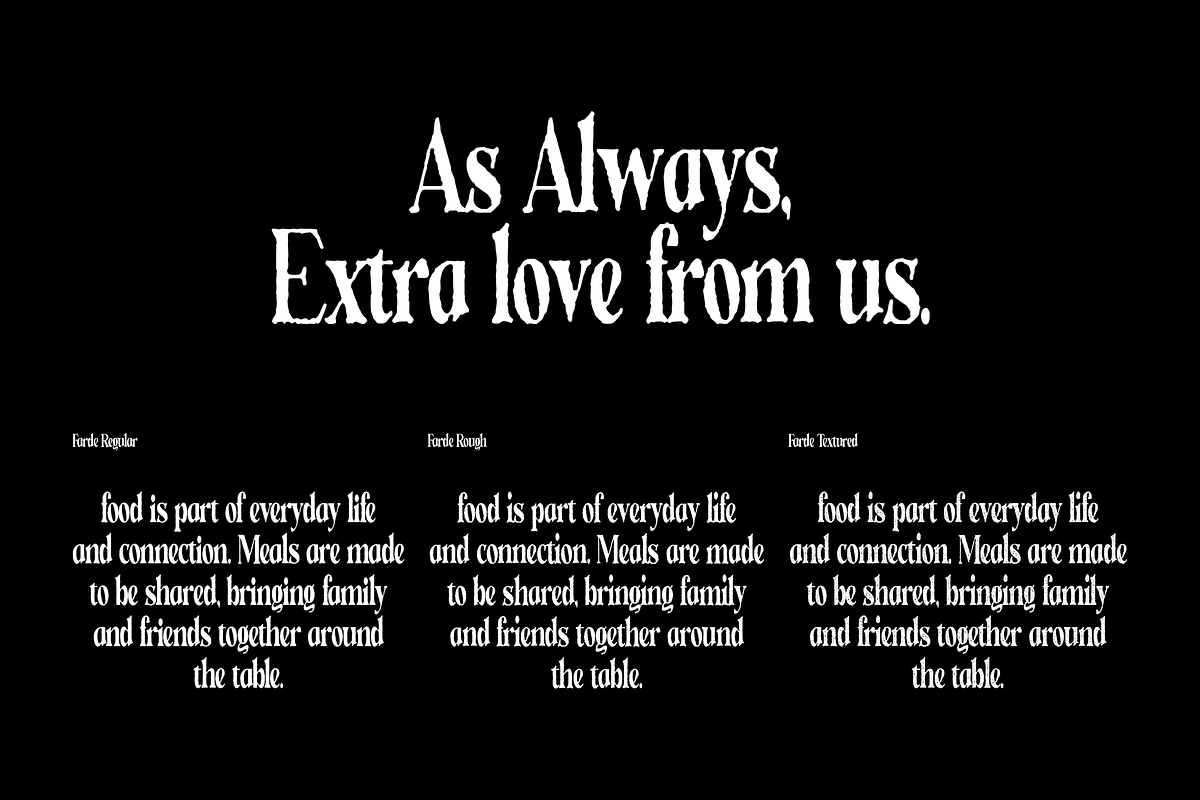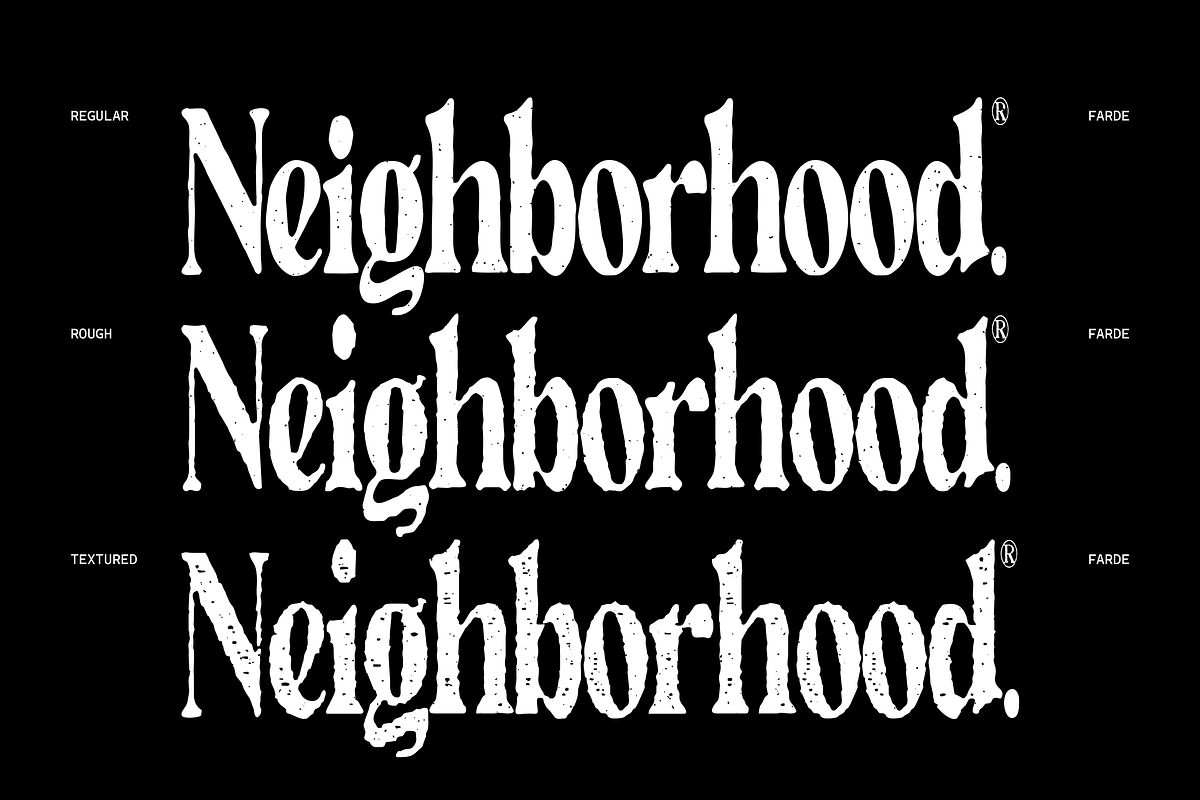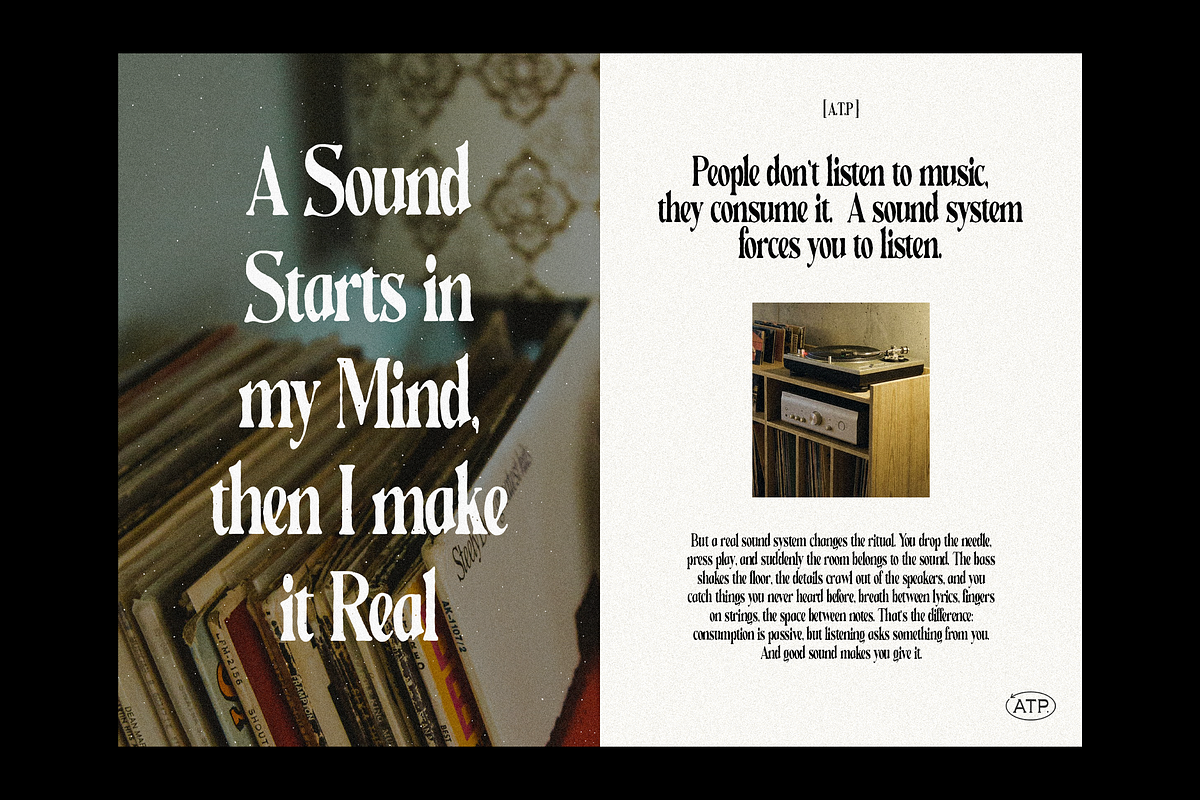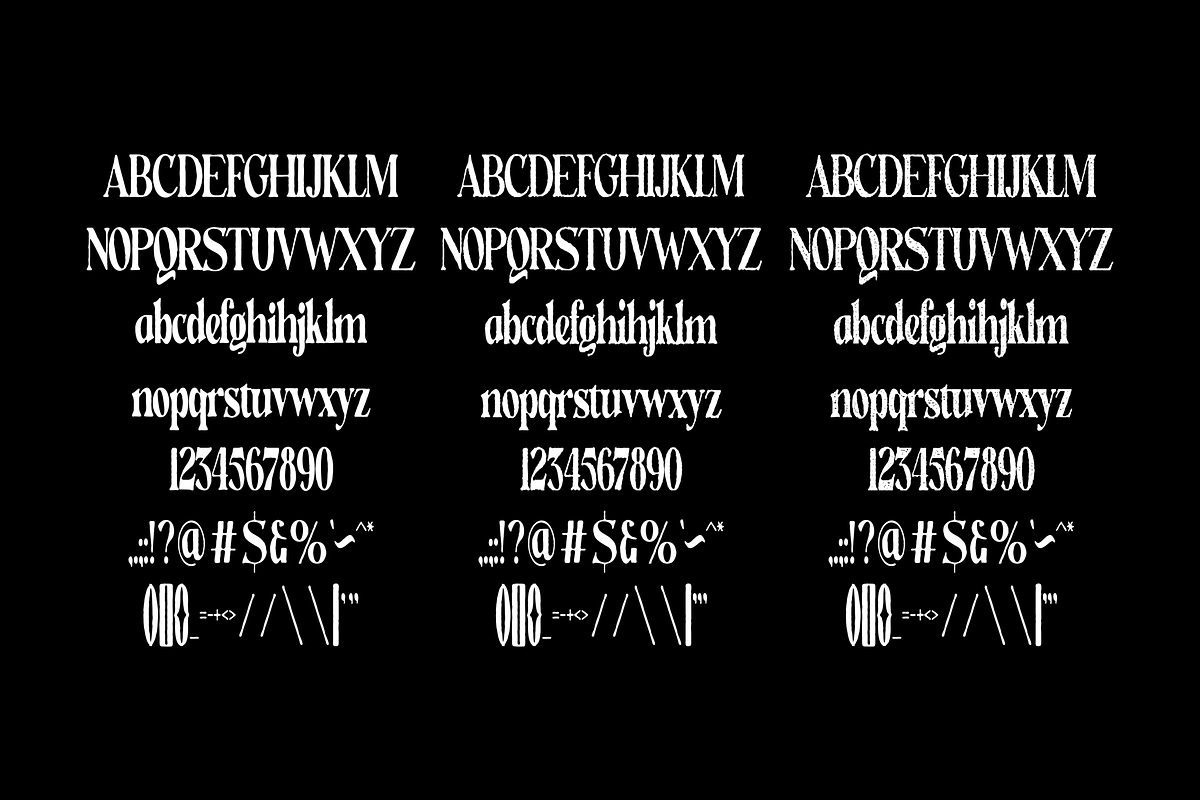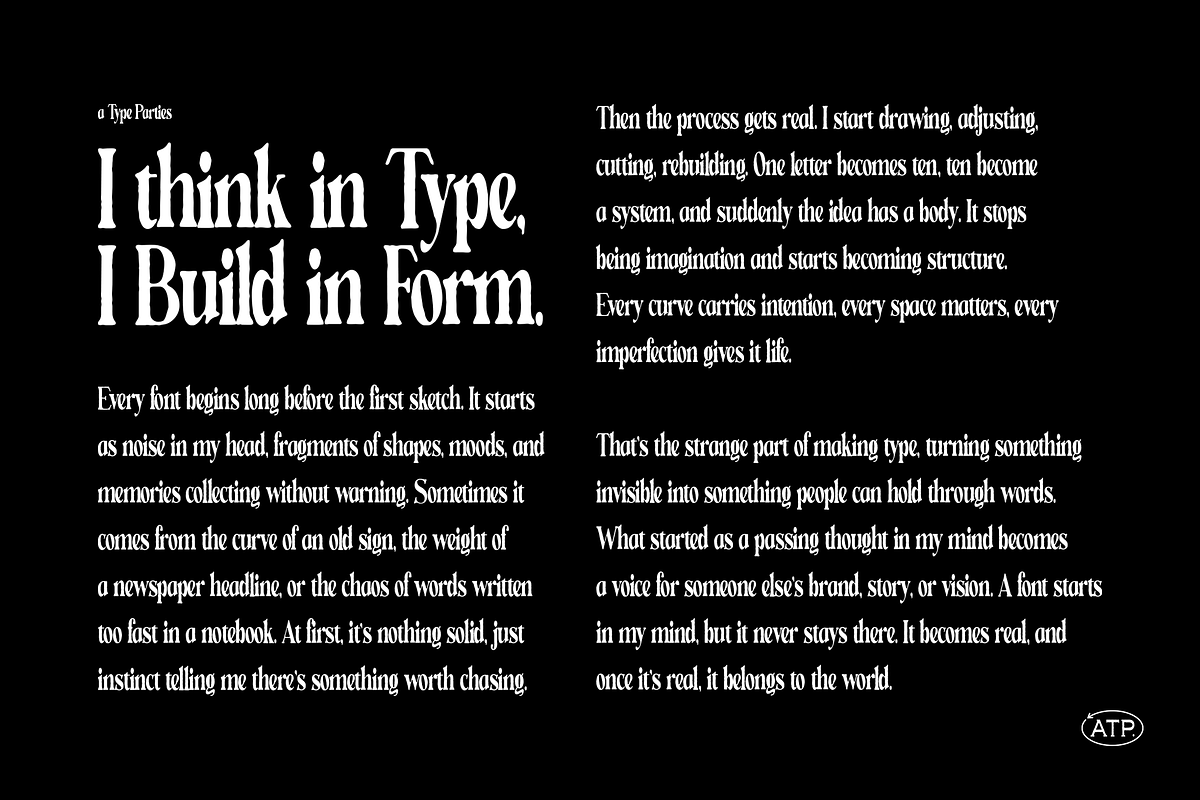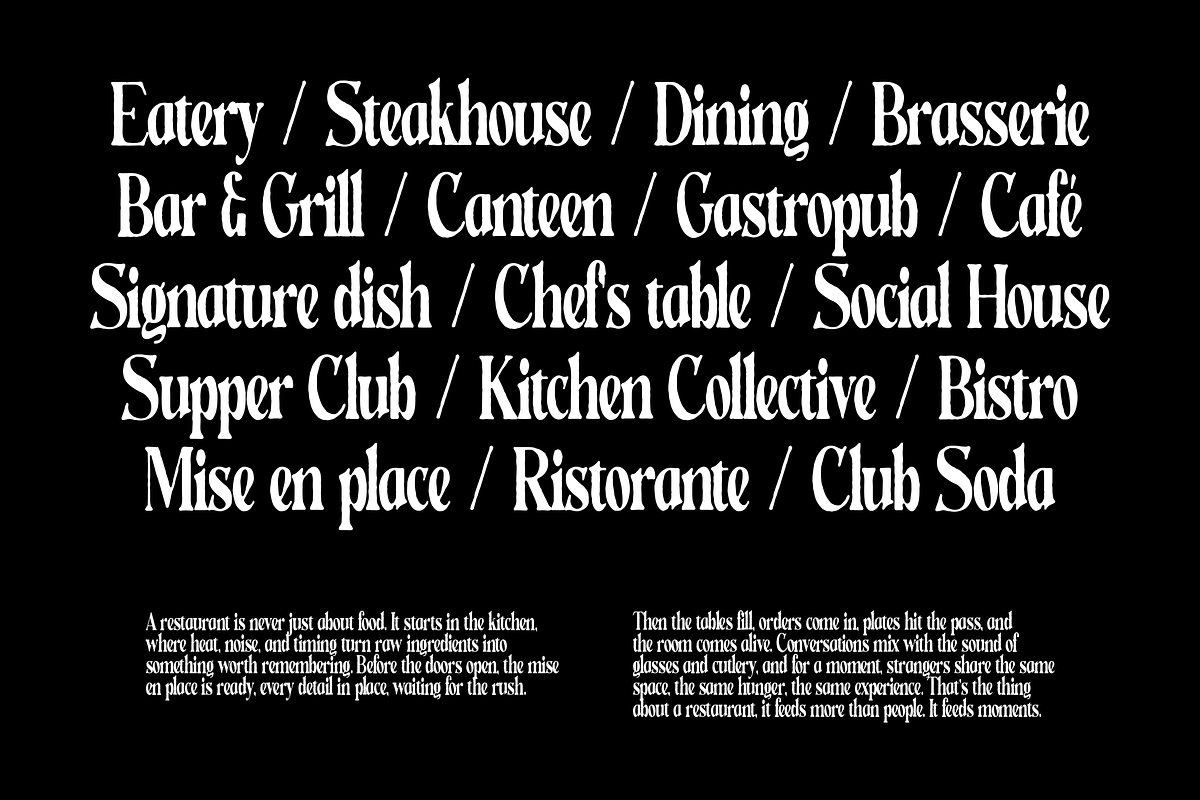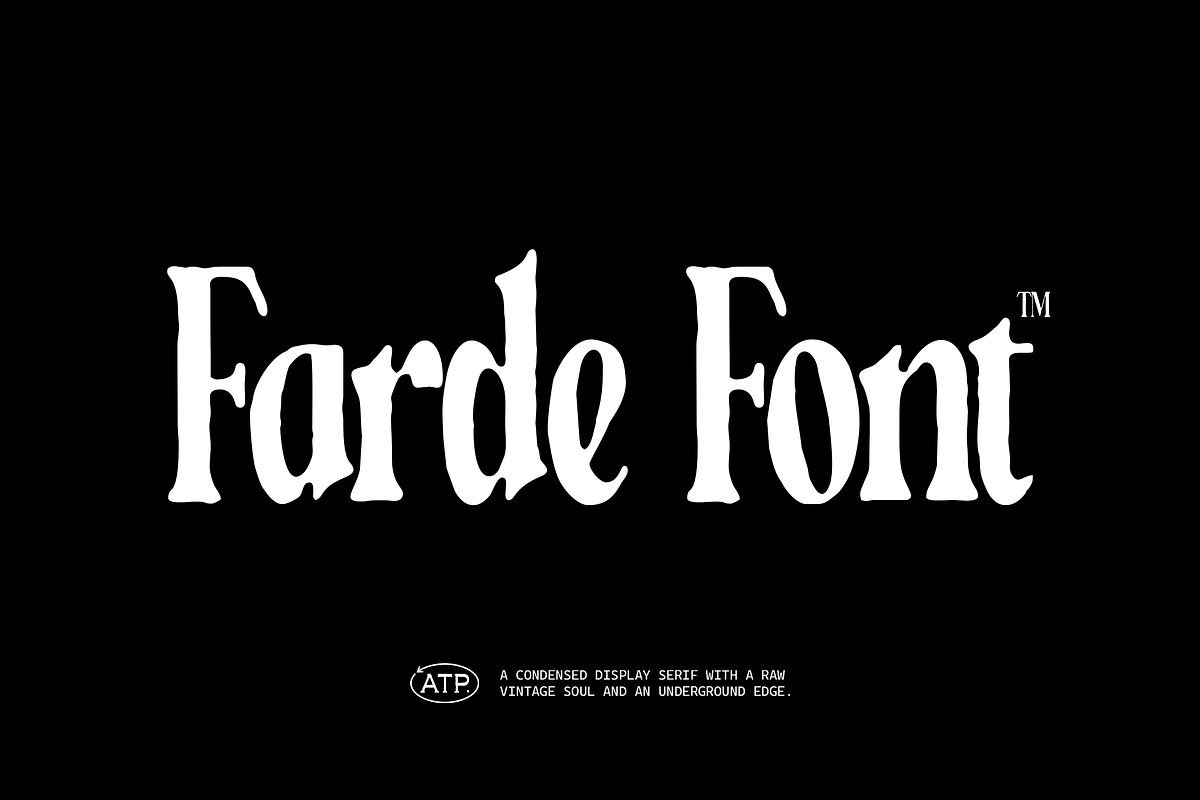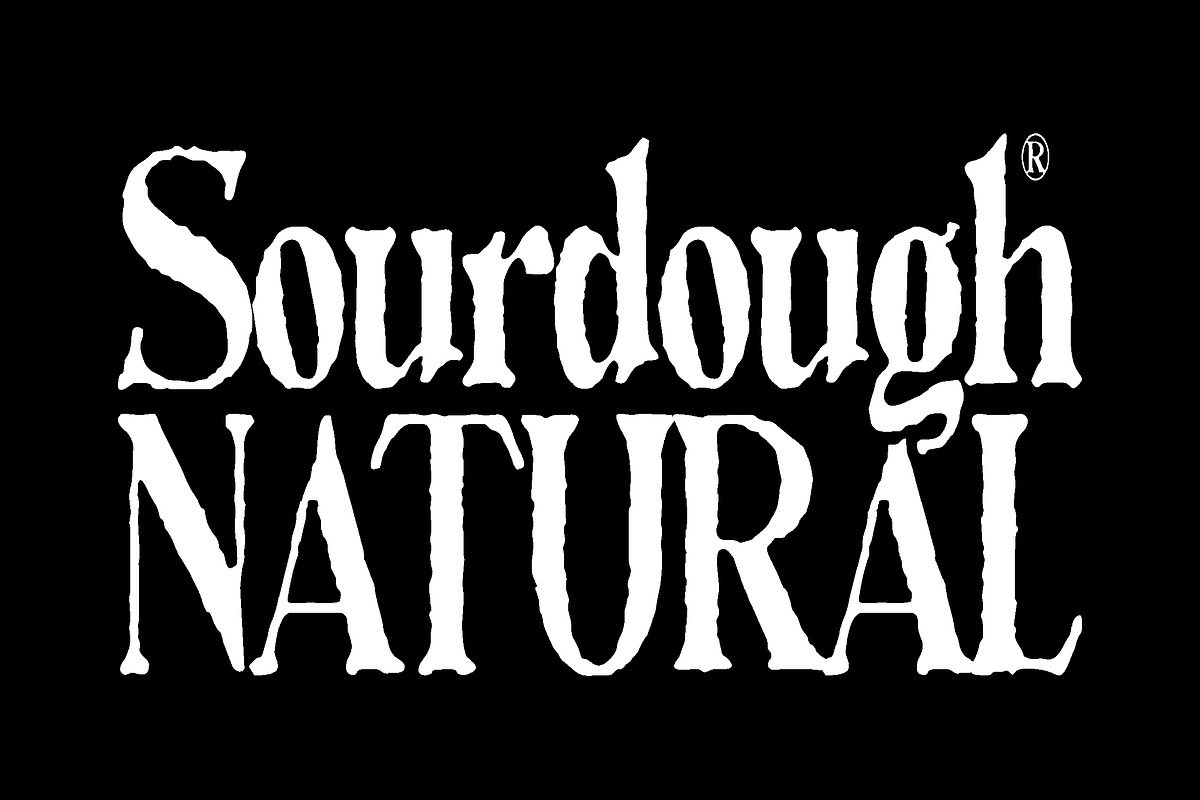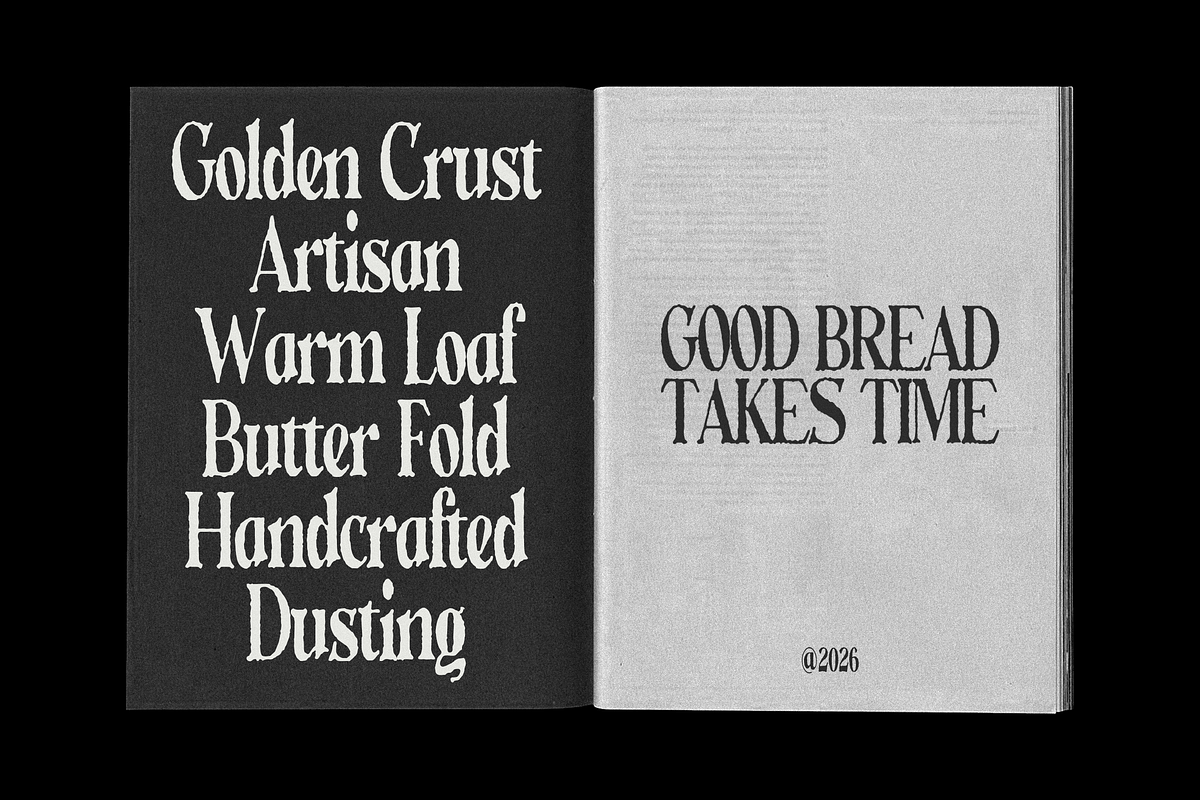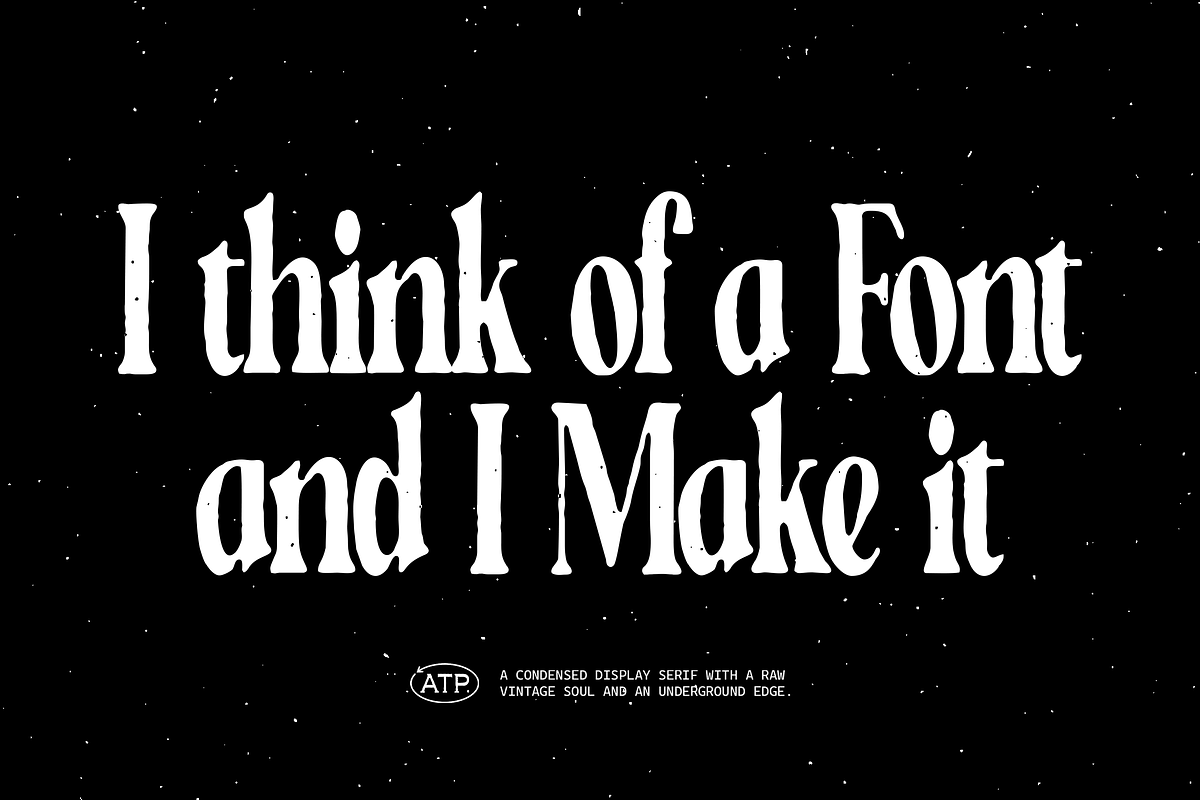
Farde - Condensed Display Serif
Farde was built from the idea that familiarity doesn’t have to feel safe, it can feel loud, strange, and alive.
I wanted to make a typeface that feels like the streets I grew up looking at: old shop signs, fading posters on walls, hand-painted lettering fighting against time. There’s something raw in imperfect letters, something honest. So instead of chasing clean geometry, I leaned into tension, stretched proportions, sharp serifs, and uneven flow to make it feel human.
As a creator, I kept thinking about how a Farde is never just a place, it’s personality. It’s noise, stories, corners, movement. That became the DNA of this font. Tall forms to create presence, soft distortion to keep it organic, and bold character shapes that feel almost spoken rather than written.
It feels vintage, but not stuck in the past. Rough, but intentional. Familiar, but with its own strange voice.
A typeface made like a place: full of character, history, and friction.
Lowercase
Numerics